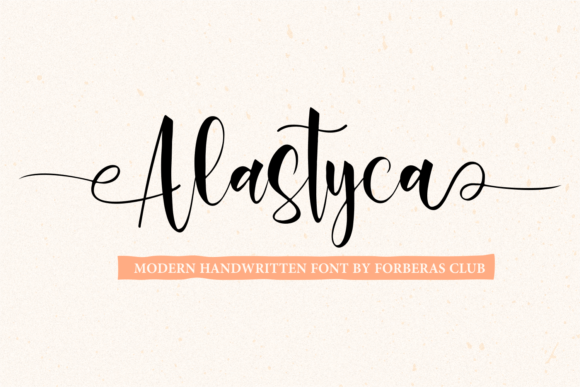
The Alastyca Font: A Timeless, Elegant Touch for Your Designs
Have you ever been in the middle of a design project, and suddenly, you’re stuck on finding the perfect font? I recall a recent experience where I was working on a branding project for a luxury client, and I just couldn’t find a font that screamed elegance and sophistication. That’s when I stumbled upon the Alastyca font, and it instantly became my go-to choice. In this article, I’ll share my love for this beautiful font, its features, and how to make the most of it in your designs.
A Personal Review: What I Love About Alastyca
So, what makes Alastyca so special? Here are a few things that I absolutely love about this font:
- ✨ Elegant and flowing script: Alastyca has an incredibly distinct and timeless style that adds a touch of sophistication to any design.
- ✅ Highly versatile: This font is perfect for a wide range of projects, from branding and advertising to packaging and digital media.
- 💫 Unique character: Alastyca has a personality of its own, making it stand out from more generic fonts.
While Alastyca is an amazing font, there are a few minor quirks to be aware of:
- 🤔 Limited use in body text: Due to its elegant and cursive nature, Alastyca might not be the best choice for long blocks of body text. It’s better suited for headings, titles, and short paragraphs.
- ⚠️ Requires careful kerning: As with any script font, kerning can be a bit tricky. Make sure to adjust the tracking and kerning to ensure the text looks smooth and polished.
A Practical Guide: Using Alastyca in Your Designs
- Experiment with the font’s OpenType features, such as stylistic alternates and glyphs, to add more personality to your text.
While I couldn’t find any information on the exact design process behind Alastyca, I imagine it was created with the intention of crafting a beautiful, elegant script font that would add a touch of sophistication to any design. The designer likely drew inspiration from classic calligraphy and refined typography, resulting in a font that’s both timeless and versatile.
| What is the best use for Alastyca font? | Alastyca is perfect for headings, titles, and short paragraphs where you want to add a touch of elegance and sophistication. |
| Is Alastyca suitable for body text? | While Alastyca is a beautiful font, it’s not ideal for long blocks of body text. It’s better suited for shorter texts where you want to make a visual impact. |
| Does Alastyca support OpenType features? | Yes, Alastyca supports OpenType features, including stylistic alternates and glyphs, which allow you to customize the font to suit your design needs. |